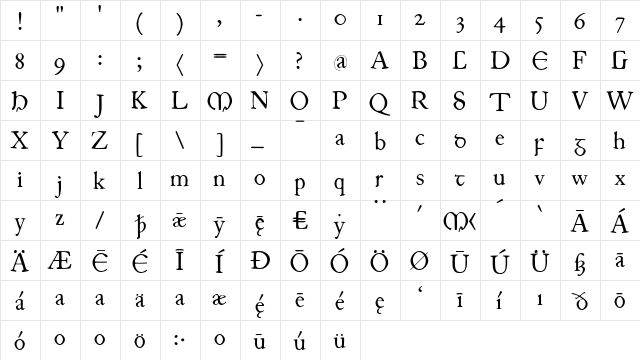
JuniusIrish Regular
Design Context for JuniusIrish Typeface
JuniusIrish takes a measured approach to typography — its balanced proportions and neutral character make it a reliable workhorse for both digital and print work.